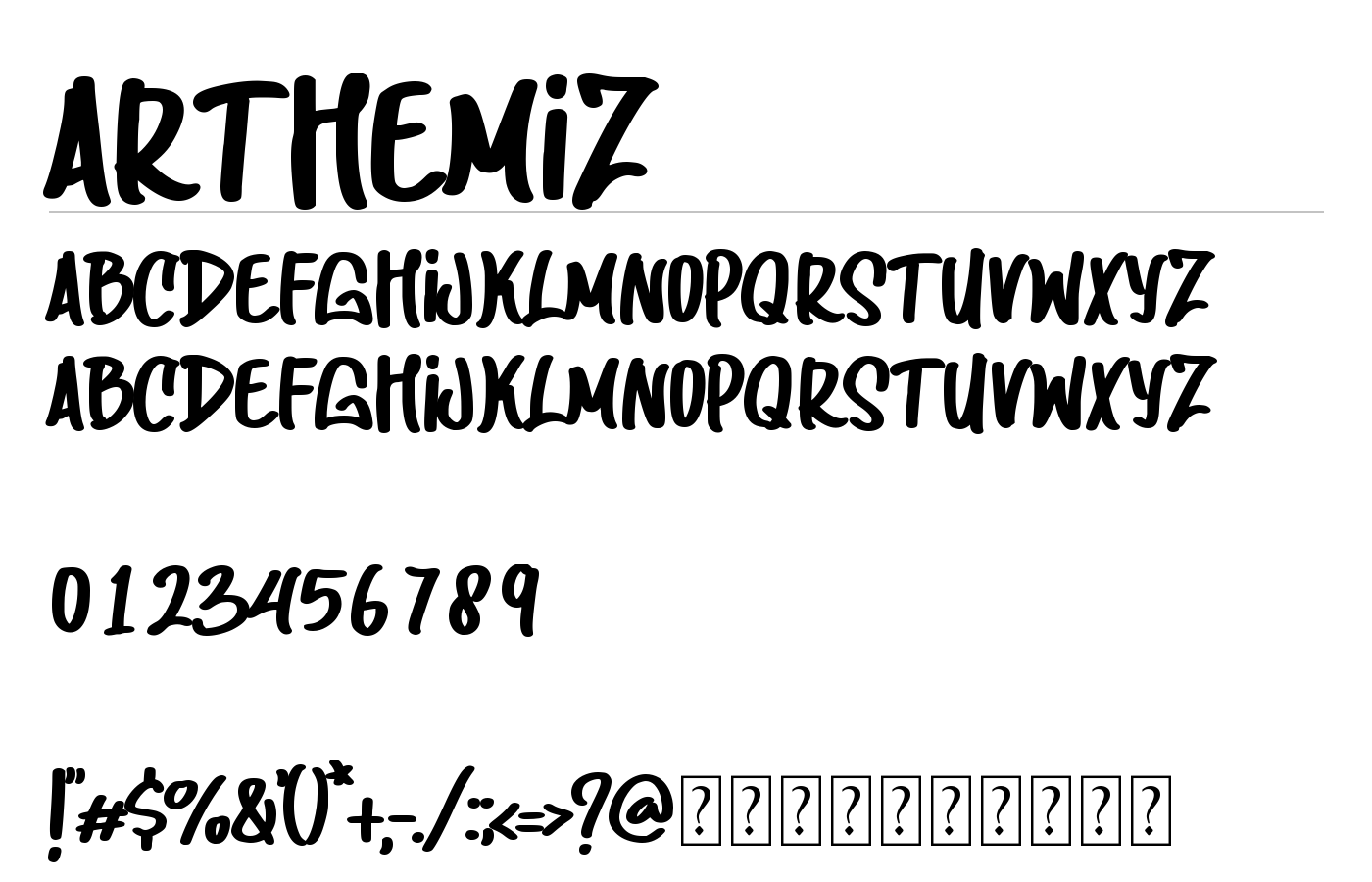
ARTHEMIZ is a bold, playful handwritten sans serif font with a casual, brushstroke feel. Its irregular, friendly letterforms and moderate contrast bring a lively, artistic vibe perfect for creative branding, informal headlines, posters, and any design needing a personal, approachable touch. This font works well where a vibrant and expressive style is desired over formality or strict structure.
ARTHEMIZ Font
About ARTHEMIZ Font
| Font family | ARTHEMIZ Font |
| Designer | typecoconut |